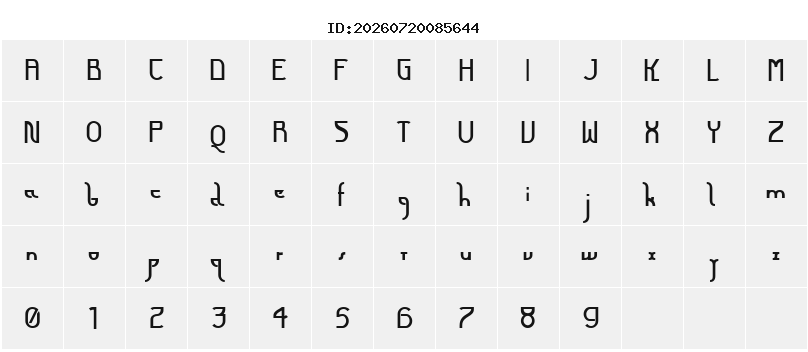
• Font Name: Futurex Arthur
• Full Font Name: Futurex Arthur Bold
• Description: Graham Meade and Apostrophic Laboratories. All rights reserved. This font is part of the Futurex project, which invites all type designers to create their own versions of this font using Futurex-Parts. For more information on how to become part of the project read the text file enclosed or send mail to apostrofe@home.com.
About Futurex Arthur.ttf
Futurex Arthur.ttf is a modern, elegant sans-serif font designed for ultimate readability and visual harmony. Perfect for branding, headlines, web design, and print materials.